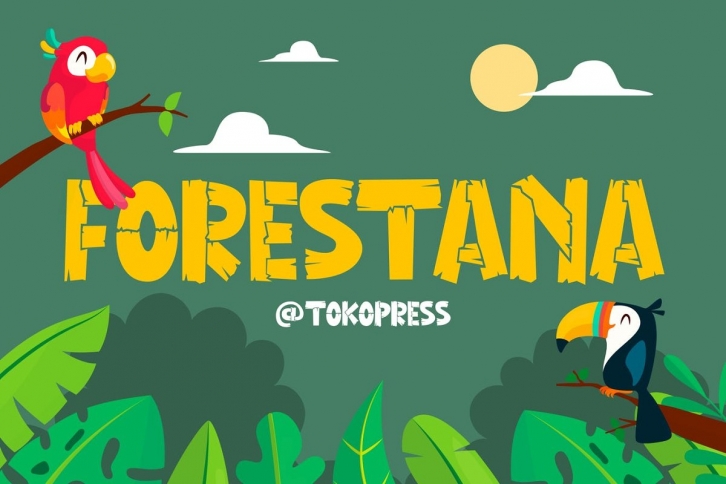
Forestana – Children font
Love the jungle, keep the tree safe. This Forestana brings a wooden plank look in a funny and kid-friendly way.
Suit perfectly for kids market, online games, stationary, school supplies font, poster, movie title, youtube covers, youtube thumbnails, social media page covers and so on…